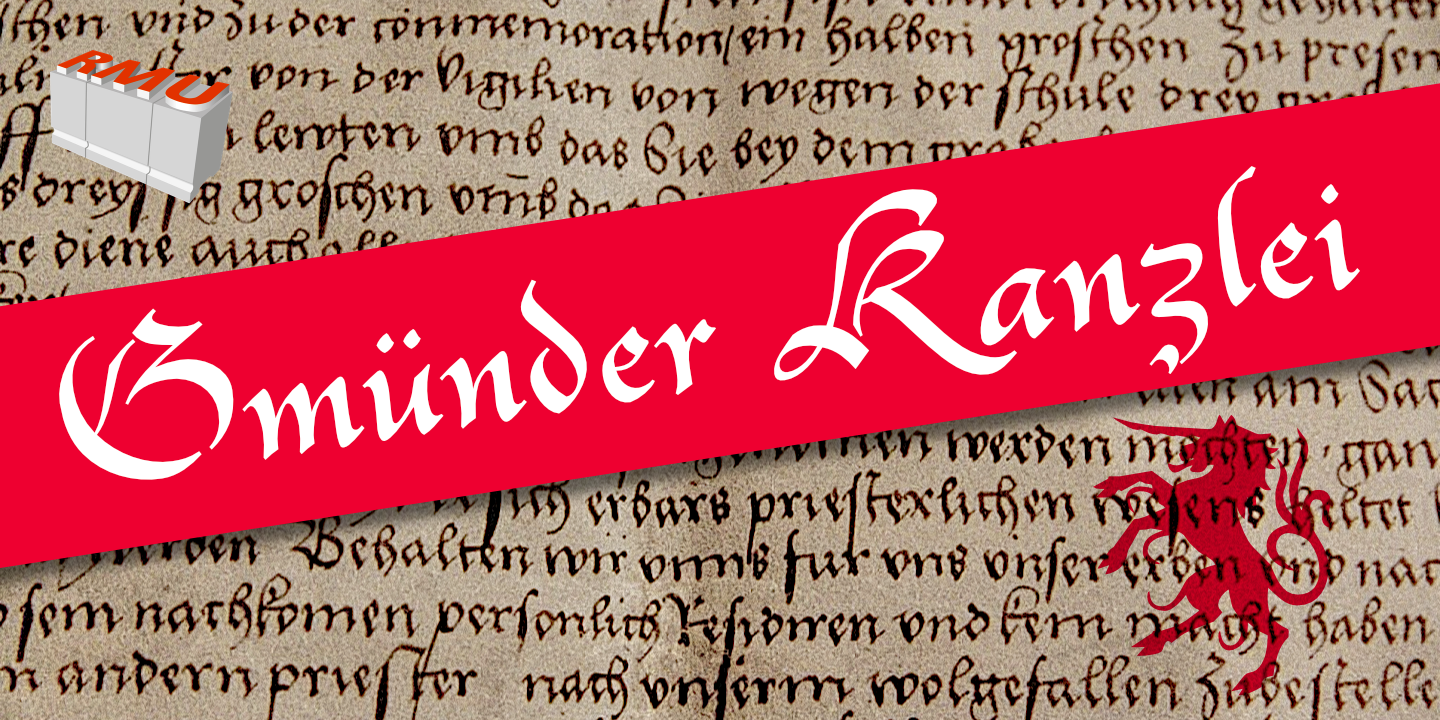
Gmuender Kanzlei Font is perfect for German legal documents, European law firms, traditional German businesses, historical manuscript reproductions, Gothic revival projects, German cultural heritage materials, medieval document designs, and authentic Germanic institutional branding. This distinguished typeface brings German legal tradition and Gothic authority to any design project celebrating Germanic culture and formal document excellence.
What makes Gmuender Kanzlei Font exciting is its authentic preservation of German chancery traditions combined with legal authority that perfectly captures the formal dignity and institutional reliability of Germanic legal and administrative systems. The elegant letterforms feature traditional Kanzlei proportions and Gothic influences that create an unmistakably Germanic appearance. Each character embodies centuries of German institutional heritage, making it ideal for organizations that represent German culture, legal tradition, and the formal excellence of European administrative systems.
The Gmuender Kanzlei Font family typically includes regular weight with complete Germanic character sets, including German umlauts, legal symbols, punctuation marks, and traditional chancery elements. The authentic Gothic styling maintains proper German typographic conventions while providing contemporary functionality for modern German legal and institutional design applications.
Whether you're developing German institutional brands or creating European legal materials, Gmuender Kanzlei Font Free Download offers unmatched Germanic authenticity and legal authority. This distinguished typography choice transforms formal documents into authoritative communications that resonate with audiences appreciating German institutional excellence and European legal traditions. The font's formal construction ensures exceptional performance across legal applications while maintaining its distinctive Germanic character that makes every design project feel like an official document from the most respected German institutions where tradition and legal excellence create lasting institutional authority.